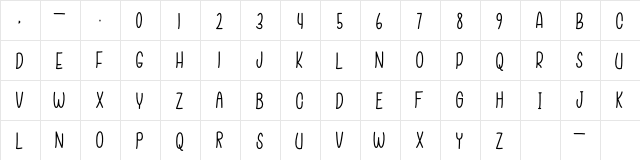
Feeling Good Thin Regular
| Designer | Andri Ardianto + Madatype Studio |
Design Context for Feeling Good Thin Typeface
Feeling Good Thin offers clean, dependable letterforms without strong stylistic allegiance, making it a practical choice for designers who need flexibility. The delicate stroke weight brings airiness and refinement to layouts.